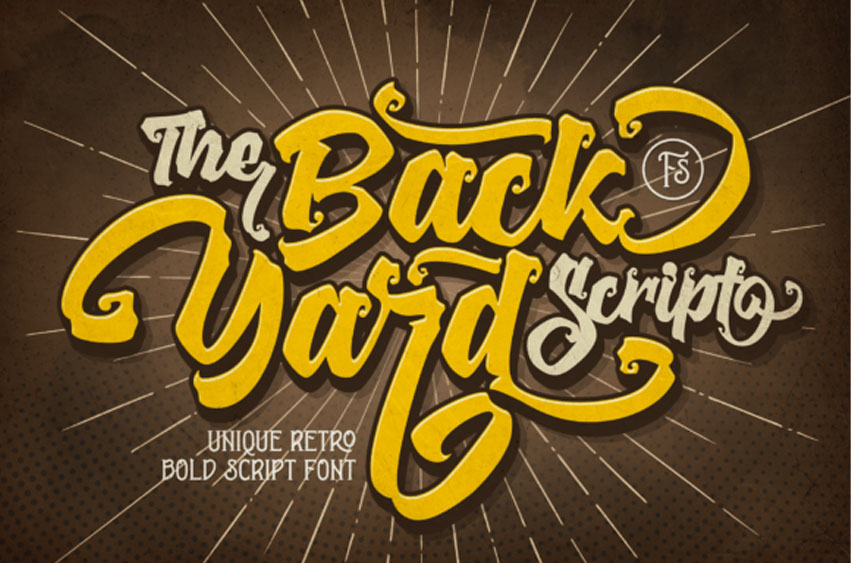
The Backyard Font Script is a retro-style bold handwritten font, crafted to give your headlines and logotype projects a stylish touch.
This font reads as strong, confident, and dynamic and can add tons of nostalgic character to your designs. It is PUA encoded which means you can access all of the glyphs and ligatures with ease!